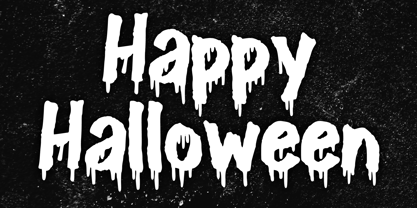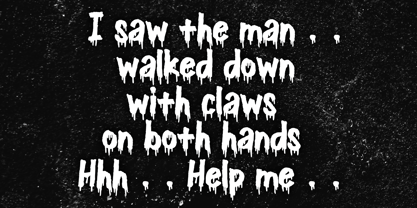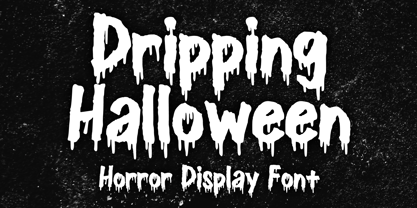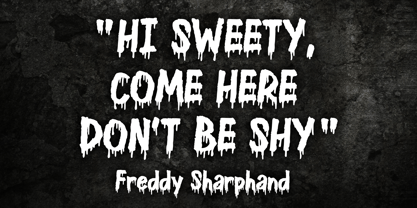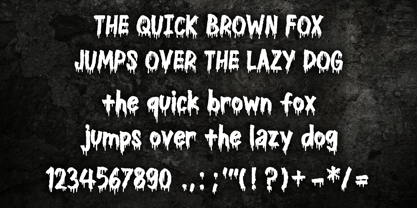
Dripping Halloween
by Mvmet
The Dripping Halloween Font Family was designed by Gabriel Valentinus and published by Mvmet. Dripping Halloween contains 1 styles. More about this family
Dripping Halloween is a captivating font that showcases ink drips, drawing inspiration from vintage horror films, horror comics, and the essence of Metal music. This cool typeface is ideal for your Halloween-themed projects, whether you're crafting eerie merchandise such as t-shirts or apparel, designing chilling book covers, or creating invitations for Halloween parties, this font brings a unique spooky flair. Perfect for greeting cards, stickers, posters, banners, and any project seeking a haunting touch, Dripping Halloween encapsulates the thrill of the season with its striking design.